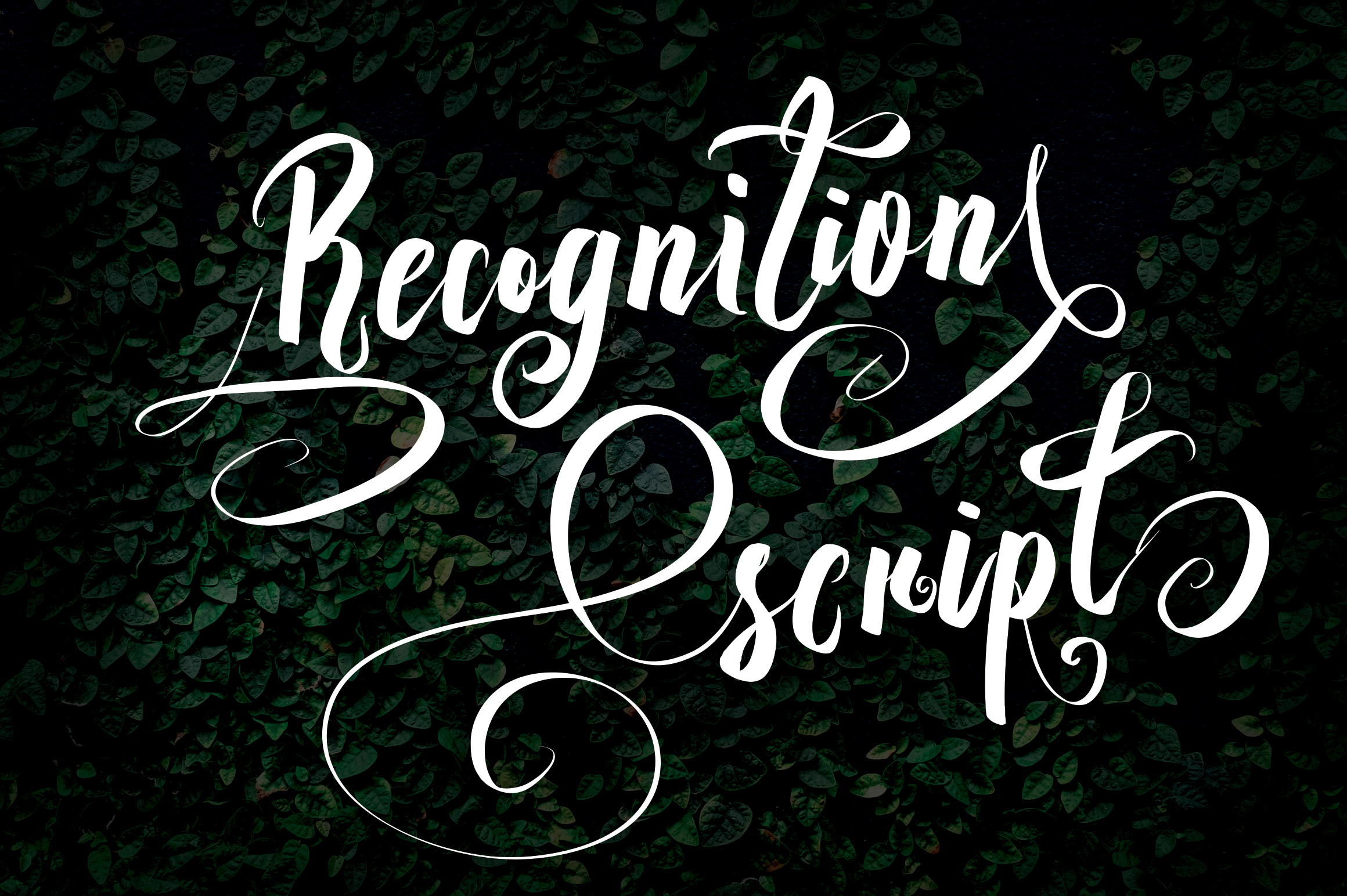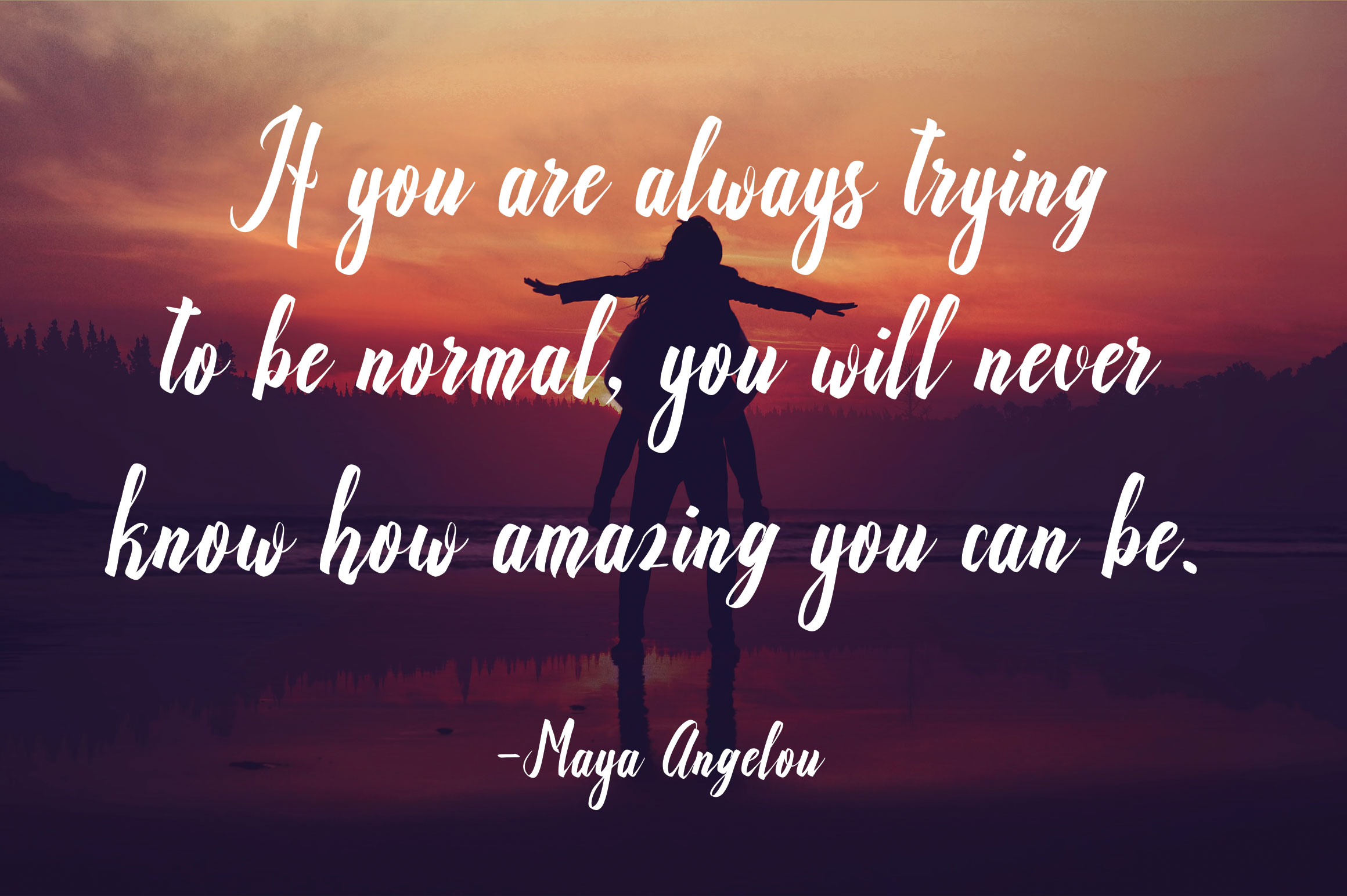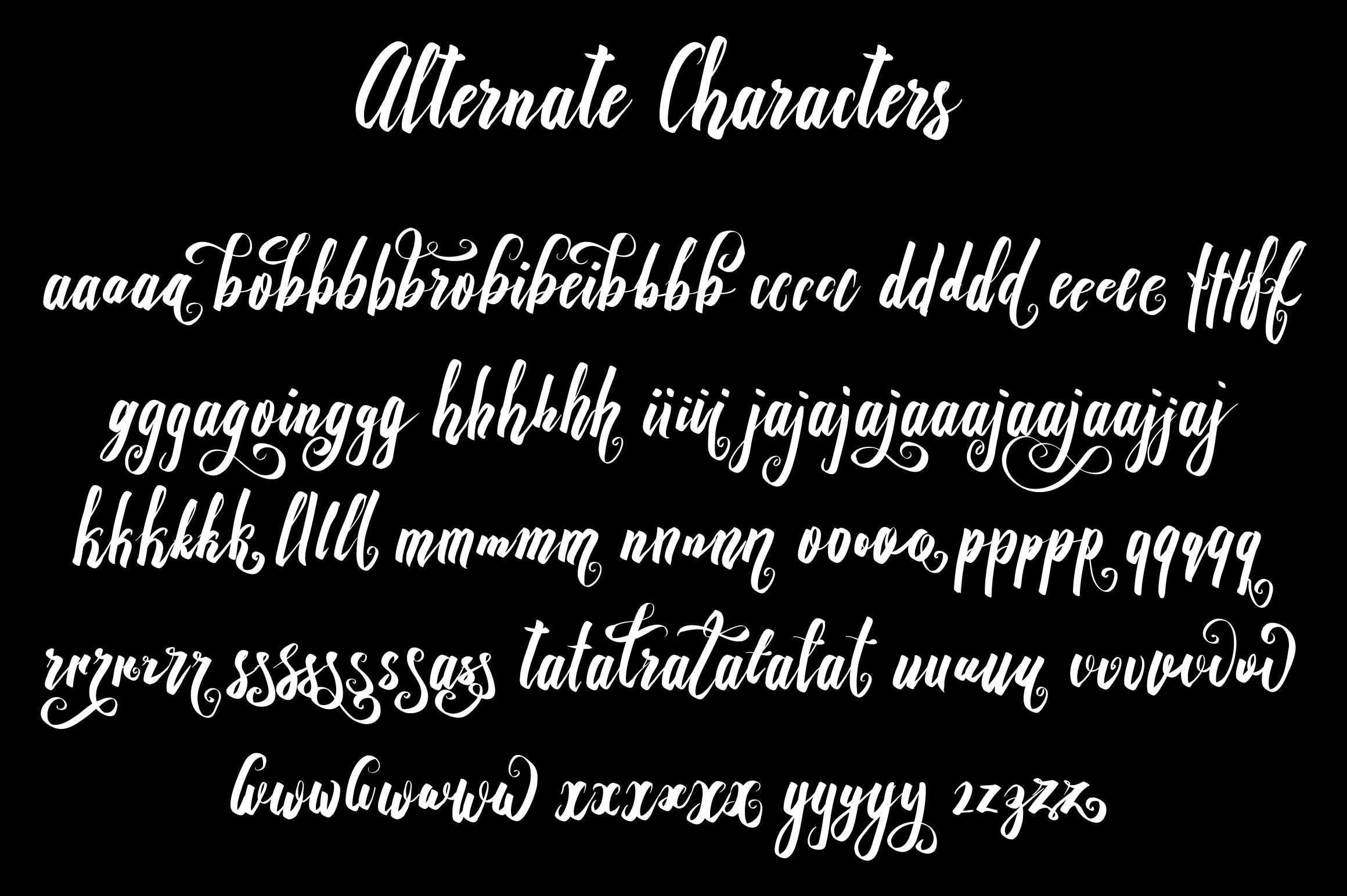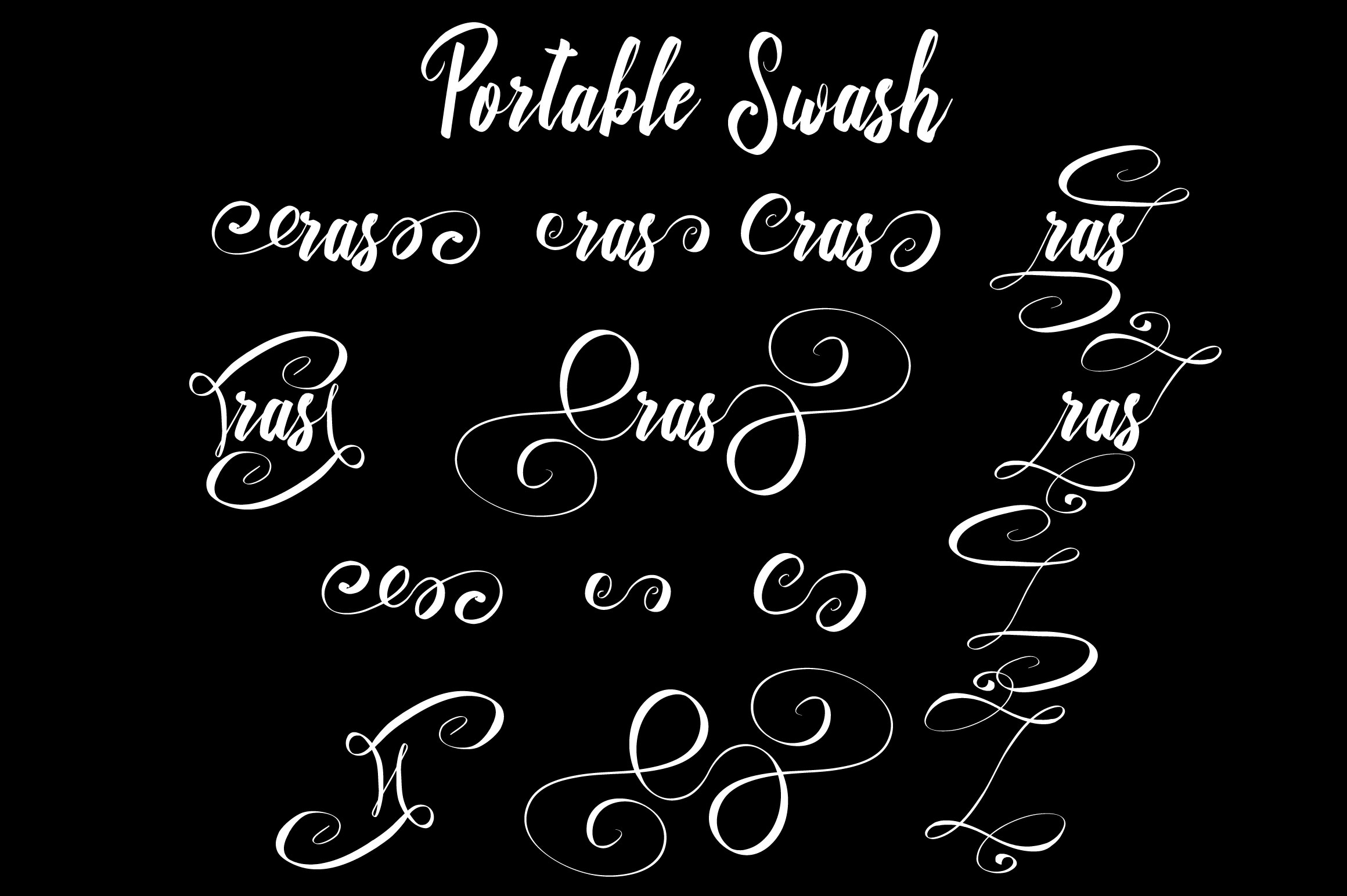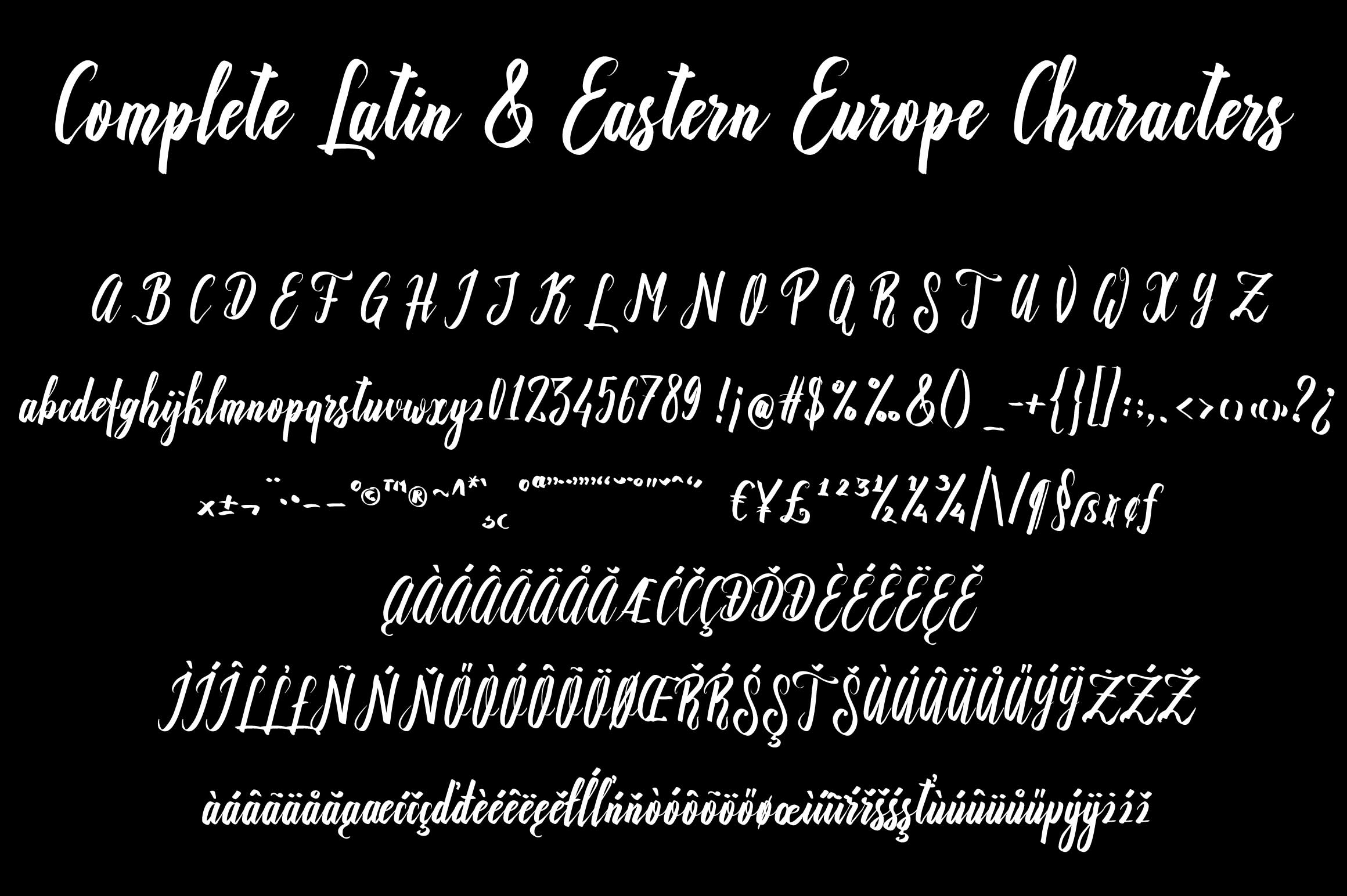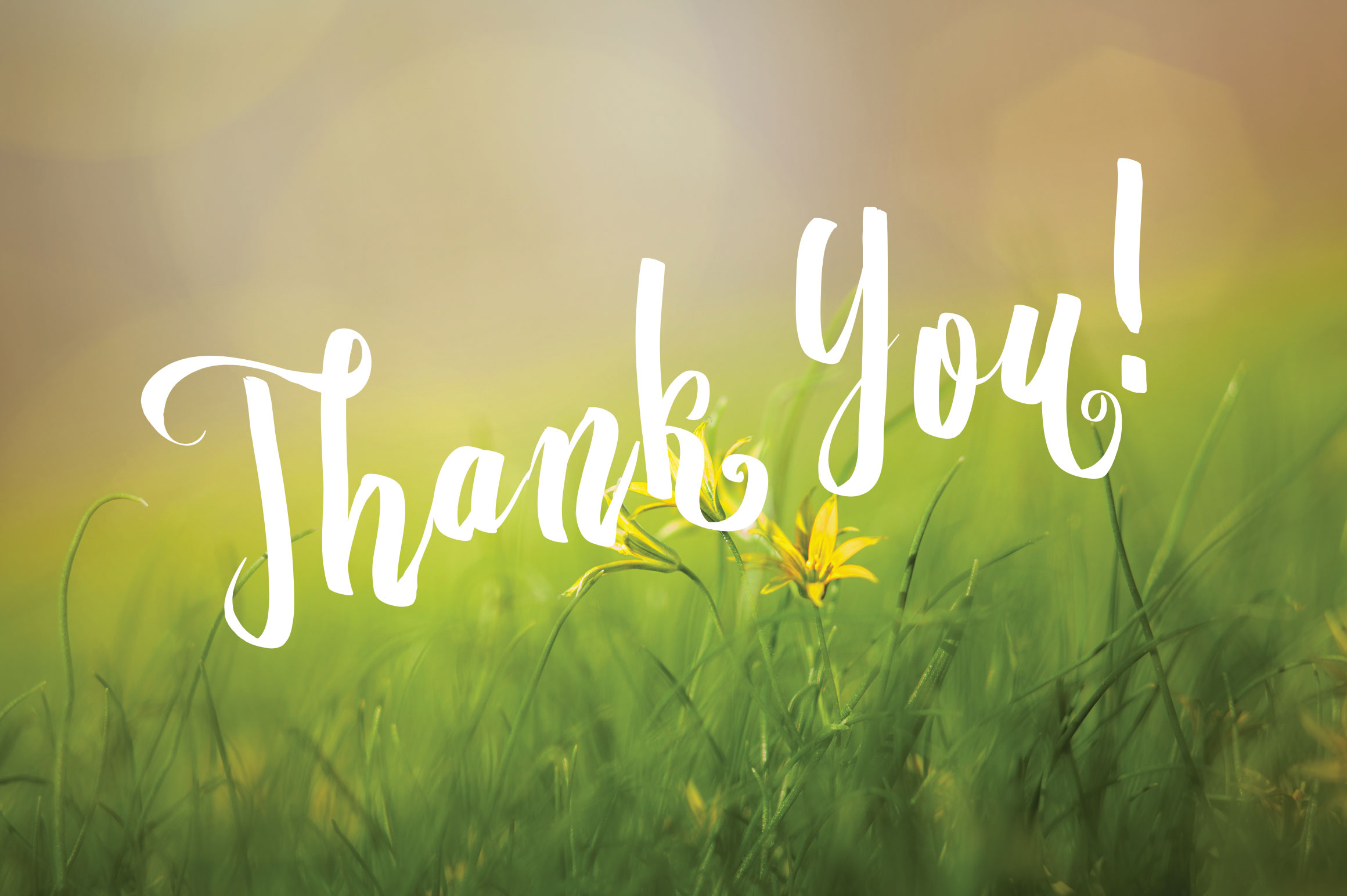
Recognition Script Font
About Recognition Script Font
Recognition is a gorgeous and classic looking script font. With a semibold weight and natural strokes in the characters, Recognition is a wonderful font option for designs needing that extra touch of class and sophistication.